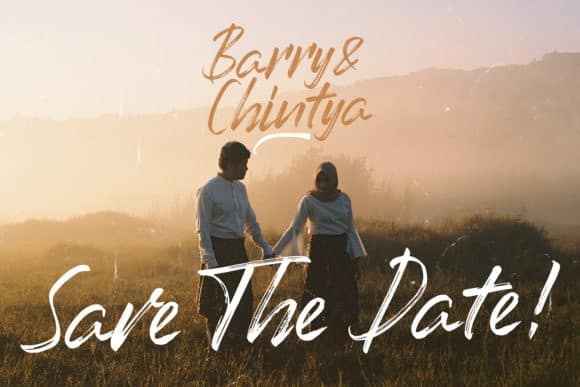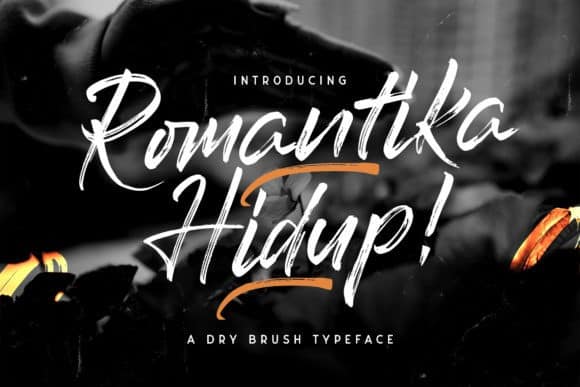
Romantika Hidup Brush Font is handbrush script typeface with bold and natural looking style with ligature supporting to make your projects look truly authentic. Get inspired by its unique and beautiful style and add it to your favorite designs!.
You can use it as display text for big headlines, text in long writing, poster designs, logotype designs with an old impression. Equipped with multi language characters.